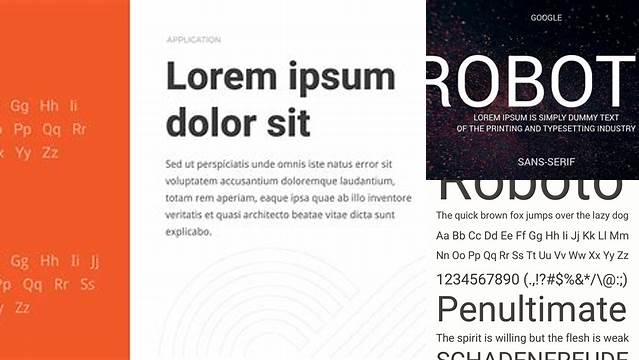
Mastering Roboto Font: Design, Performance, & Web Use
Hey there, web design enthusiasts and typography lovers! Ever wonder how to pick the perfect font that looks good, loads fast, and genuinely elevates your website's vibe? Well, guys, you're in the right place because today we're diving deep into the world of Roboto Font. This isn't just any font; it's a cornerstone of modern web design, a favorite for millions, and a true workhorse in the digital landscape. Let's unlock its full potential, from its design intricacies to its impact on your site's performance and overall user experience. Get ready to transform your designs with this versatile Google Font!
What is Roboto Font and Why Should You Care?
Roboto Font isn't just a randomly chosen typeface; it's Google's very own open-source sans-serif font family, originally developed for the Android operating system back in 2011. Since its inception, Roboto Font has undergone significant refinements, evolving into the clean, modern, and highly versatile font we know and love today. What makes it so special, you ask? Well, guys, it's designed to be natural and comfortable to read across a wide range of screens and resolutions, offering a slightly wider structure and open forms that contribute to its excellent legibility. It's often described as a neo-grotesque font with a mechanical skeleton, yet it boasts friendly and approachable curves, making it feel less rigid than some other sans-serif options. This unique blend of characteristics ensures that whether your users are browsing on a tiny smartphone or a massive desktop monitor, the text remains crisp and easy on the eyes. This fantastic readability, coupled with its neutral yet stylish appearance, is precisely why so many developers and designers default to Roboto for their web projects. It provides a solid, dependable foundation for any digital interface, from simple blogs to complex e-commerce sites, ensuring your message is delivered clearly and efficiently. Think of it as the ultimate utility player in your design toolkit, capable of fitting almost any role without breaking a sweat.
Furthermore, Roboto Font is part of the extensive Google Fonts library, which means easy access and incredibly optimized delivery. Google has invested heavily in ensuring that fonts like Roboto load quickly and efficiently, minimizing any performance impact on your website. This is a huge deal, especially with Google's emphasis on page speed for SEO and user experience. When you choose Roboto, you're not just picking a pretty font; you're leveraging an entire ecosystem designed for performance and accessibility. Its widespread use also means that many systems already have it cached, potentially leading to even faster load times for returning visitors. So, if you're looking for a font that combines aesthetic appeal, superior readability, and top-tier performance, then embracing Roboto Font is a smart move, guys. Itâs a choice that reflects a commitment to both design excellence and technical efficiency, truly enhancing the overall quality of your digital presence and ensuring your content shines, no matter the device or context.
Why Choose Roboto for Your Website?
Choosing Roboto Font for your website is, without a doubt, a fantastic decision for a multitude of reasons, making it a go-to choice for countless web designers and developers. First off, its incredible versatility means it can adapt to nearly any brand identity or website style, from corporate and professional to creative and artistic. This isn't just about looking good, guys; it's about providing a consistent and polished appearance that instills confidence in your visitors. Roboto Font's clean lines and balanced letterforms contribute to a modern aesthetic that never feels outdated, ensuring your website maintains a fresh and contemporary feel for years to come. This timeless quality means you won't have to constantly revisit your typography choices, saving you valuable time and resources in the long run. Its neutrality also allows your content and imagery to take center stage, rather than the font competing for attention, which is crucial for effective communication.
Beyond aesthetics, the practical benefits of using Roboto Font are immense. As part of Google Fonts, it's completely free to use, meaning no licensing fees or complicated legal hurdles â just pure, unadulterated typographic goodness available at your fingertips. This open-source nature is a massive advantage, especially for startups, small businesses, or individual creators working with limited budgets. Additionally, its robust family includes numerous weights, from ultra-thin to bold black, and even italic styles, providing an impressive range of options for hierarchy and emphasis within your content. Need to highlight a critical call to action? Go for a bold Roboto Font. Want a lighter touch for supplementary information? Roboto Light has got your back. This extensive range allows for sophisticated typographic control, helping you guide your readers' eyes through your content with ease and precision. You can create clear visual distinctions between headings, subheadings, body text, and captions, all while maintaining a cohesive look and feel. This strategic use of different weights significantly improves readability and user engagement, ensuring your message is not only seen but truly understood. Plus, its optimized delivery via Google's global content delivery network (CDN) means your font files load incredibly fast, contributing positively to your site's overall performance and, consequently, its search engine rankings. It's a win-win situation, guys, where aesthetic appeal meets practical, performance-driven benefits, making Roboto an undeniable powerhouse in the world of web typography.
Integrating Roboto with Google Fonts: The Easy Way
Roboto Font Pairing: Discovering Best Combinations
One of the coolest things about Roboto Font is its incredible versatility, and that versatility truly shines when you start pairing it with other typefaces. Finding the best font pairings is an art, guys, but it's an art that can dramatically elevate your website's visual hierarchy and overall design appeal. Because Roboto Font has a neutral, clean, and highly readable quality, it acts as a fantastic foundation that can complement a wide array of other fonts, from elegant serifs to more playful sans-serifs or even display fonts. The key to successful font pairing is contrast â not just in style, but also in weight and size. You typically want one font to be the dominant one (often for headings) and the other to be the supportive one (usually for body text), or vice-versa. Roboto Font excels as both, making it super flexible in any combination. For example, pairing Roboto Font with a classic serif font like Georgia or Merriweather can create a sophisticated and traditional feel, with the serifs adding a touch of elegance to your headings while Roboto Font ensures excellent readability for the main content. This juxtaposition of old-world charm and modern simplicity can be incredibly powerful, giving your site a refined yet approachable personality. It's about creating a harmonious visual dialogue between two distinct typographic voices, each playing its role to enhance the overall message and aesthetic of your digital space.
On the other hand, if you're aiming for a more modern, clean, or even minimalistic look, pairing Roboto Font with another sans-serif font can also work wonders, as long as there's enough visual distinction. Perhaps a more geometric sans-serif like Montserrat or a humanist sans-serif like Open Sans. The trick here is to ensure the secondary sans-serif has a different personality or a slightly different x-height or width to avoid visual monotony. For instance, using Roboto Font for body text and Montserrat for headlines offers a fresh, contemporary vibe with good contrast in form and weight. Another excellent pairing strategy involves using different weights and styles within the Roboto Font family itself. You can use a bold Roboto Font for headings and a regular Roboto Font for body text, creating a clean, cohesive look thatâs still highly effective in establishing hierarchy. This approach ensures consistency and minimizes the number of font files your browser needs to load, potentially improving performance. When experimenting, always consider the mood you want to convey, the content you're presenting, and the overall brand identity. Don't be afraid to try different combinations, guys, and always test them across various screen sizes to ensure legibility and aesthetic balance. Tools like Google Fonts' pairing suggestions or Adobe Fonts can also be great resources to inspire your choices and help you discover those perfect matches that make your design truly pop.
Roboto vs. Other Sans-Serif Fonts: What Sets It Apart?
In the vast universe of sans-serif fonts, Roboto Font stands out for several compelling reasons, distinguishing itself from popular alternatives like Open Sans, Lato, Montserrat, or even Arial. While many sans-serifs aim for clean lines and legibility, Roboto Font achieves a unique balance between mechanical precision and natural rhythm, a characteristic Google refers to as its âduality.â Unlike many grotesque sans-serifs which are often designed with rigid geometric forms, Roboto Font incorporates subtle open curves and a more humanist-inspired skeleton, making it feel less sterile and more inviting. This means that while it maintains the structured clarity expected of a sans-serif, it also flows gracefully on the page, enhancing reading comfort over extended periods. For example, if you compare Roboto Font to Arial, you'll notice Roboto has a more modern and slightly condensed feel without sacrificing readability, providing a more refined and contemporary look. Arial, while ubiquitous, can sometimes appear a bit dated or generic due to its age and widespread, often uninspired, use. Roboto Font, conversely, feels fresh and intentionally designed, making it a preferred choice for interfaces where a modern touch is paramount.
Another powerful technique for optimizing Roboto Font is leveraging the font-display CSS property, specifically font-display: swap. This property tells the browser how to handle font loading and what to do if the font isn't immediately available. With font-display: swap, the browser will display your text using a fallback font (like a generic sans-serif) while Roboto Font is loading. Once Roboto is ready, it âswapsâ in, replacing the fallback. This prevents the dreaded